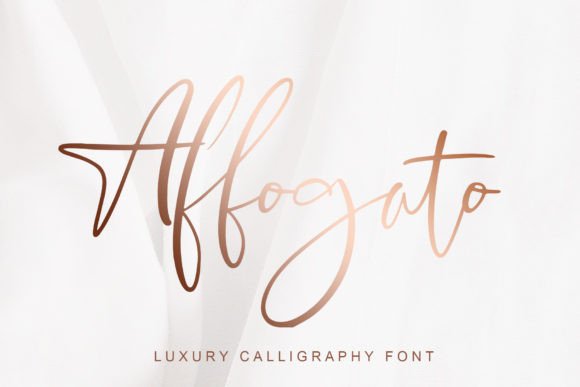
Unveil the Enchanting Affogato Script: A Timeless Symphony of Elegance and Charm for Your Creative Endeavors
Journey into the realm of Affogato, a captivating and mesmerizing handwritten font that will transport your creative visions to new heights of artistry. With its graceful curves and fluid strokes, Affogato effortlessly evokes a sense of romance and sophistication, leaving an unforgettable impression on all who behold it.
As a versatile script font, Affogato possesses an extraordinary range of applications, lending its charm to an array of projects, from heartfelt greeting cards to bold headlines. Its ability to effortlessly elevate the mundane into the extraordinary makes it a true asset for designers, crafters, and creatives seeking to make a lasting impact.
Picture the allure of your custom-designed greeting cards, where Affogato's elegant strokes dance across the page, conveying heartfelt sentiments with a touch of timeless grace. Its delicate flourishes add a personal touch, transforming mere words into expressions of art.
Envision the impact of your captivating social media posts, where Affogato's playful charm captivates audiences, drawing them into your captivating world of visual storytelling. Each post becomes a miniature masterpiece, leaving an indelible mark on the hearts and minds of your followers.
Imagine the allure of your handcrafted invitations, where Affogato's refined beauty sets the tone for an unforgettable occasion. Its intricate details and sweeping curves hint at the elegance that awaits guests, creating an atmosphere of anticipation and excitement.
With Affogato as your creative companion, the possibilities are endless. Its versatility extends to logos, branding, packaging, and even Cricut projects, where its graceful lines and whimsical flourishes add a touch of magic to every creation.
Embrace the artistry of Affogato, and let its enchanting aura transform your creative endeavors into masterpieces. Its timeless beauty will leave a lasting impression on all who encounter it, inspiring awe and admiration for your exceptional taste and impeccable style.